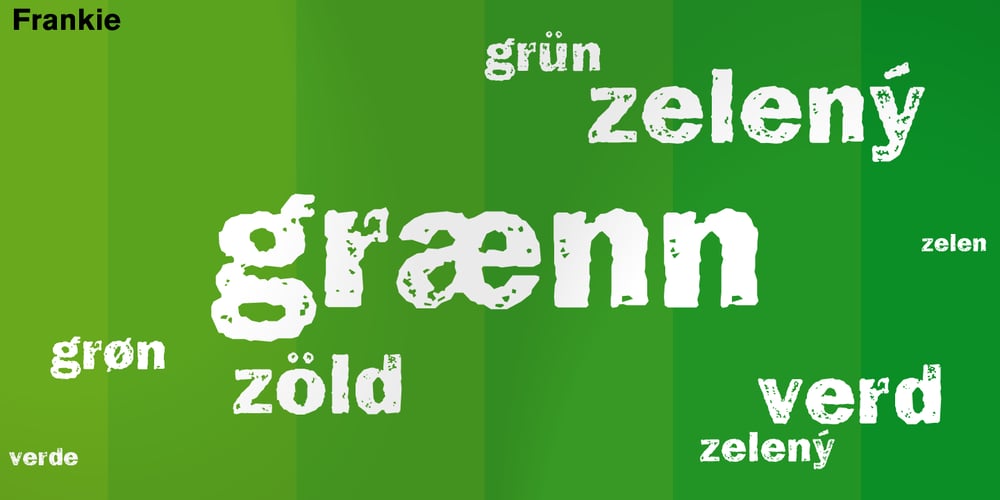
Frankie Font Family was designed by Laura Meseguer, Juan Dávila and published by Type-Ø-Tones. Frankie contains 1 styles and family package options. Frankie remains a classic among classics. A pioneer of the Type-Ø-Tones catalog, this is their personal eroded Franklin Gothic. Avoid imitations. Try Frankie, today still their best-seller. Now, in this updated version with a complete CE Character Set.